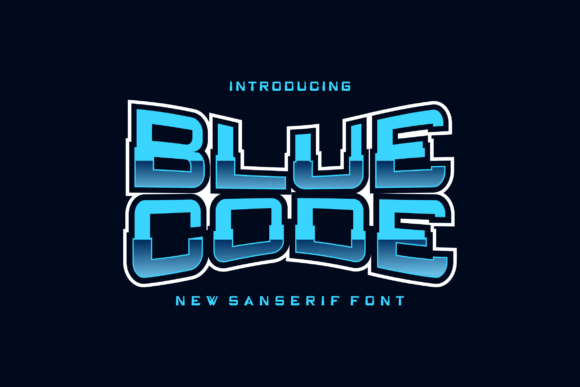
I still remember the frustration of working on a logo design project for a trendy new coffee shop. The client wanted a bold, eye-catching font that would stand out on their merchandise, but I was struggling to find the right one. Hours of scrolling through font libraries and trying out different combinations had me feeling like I was stuck in a design rut. That’s when I stumbled upon **Bluecode Font**, a modern, bold, and authentic display font that instantly caught my attention.
An Honest Review of Bluecode Font
- ✨ Bold and eye-catching: Bluecode Font makes a statement, perfect for logos, t-shirt printing, and other branding projects.
- ✅ Highly versatile: It looks outstanding in a wide range of contexts, from digital displays to print materials.
- 💡 Unique character: The font’s modern design and authentic feel set it apart from more generic fonts.
While Bluecode Font is an excellent choice for many projects, there are a few things to keep in mind:
- 🤔 Limited use in body text: Due to its bold nature, Bluecode Font might not be the best choice for lengthy body text. It’s perfect for headings and titles, but you may want to pair it with a more readable font for longer content.
- ⚠️ Some OpenType feature limitations: While Bluecode Font supports OpenType features, some advanced features might not be available or work as expected in certain design software.
The Designer Inspiration Behind Bluecode Font
Bluecode Font was designed with the modern brand in mind. Its creator aimed to craft a font that would be both bold and authentic, capable of standing out in various contexts. The design process involved experimenting with different geometric shapes and typographic styles to achieve a unique, eye-catching look.
Q: What is Bluecode Font best used for?
A: Bluecode Font is ideal for branding projects like logos, t-shirt printing, and other display purposes where a bold, eye-catching font is needed.
Q: Can I use Bluecode Font for body text?
A: While possible, Bluecode Font’s bold nature makes it more suitable for headings and titles. For longer body text, consider pairing it with a more readable font.
Q: Does Bluecode Font support OpenType features?
A: Yes, Bluecode Font supports OpenType features like ligatures and stylistic alternates, which can enhance your design.
Q: Is Bluecode Font suitable for digital displays?
A: Absolutely! Bluecode Font’s modern design and bold nature make it perfect for digital displays, including websites, social media, and digital signage.